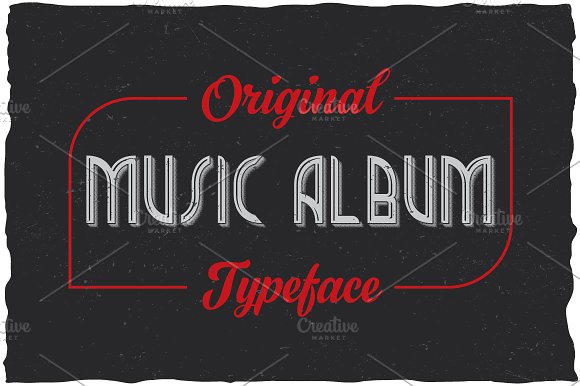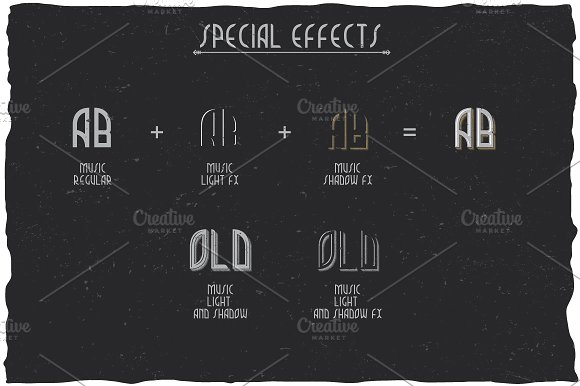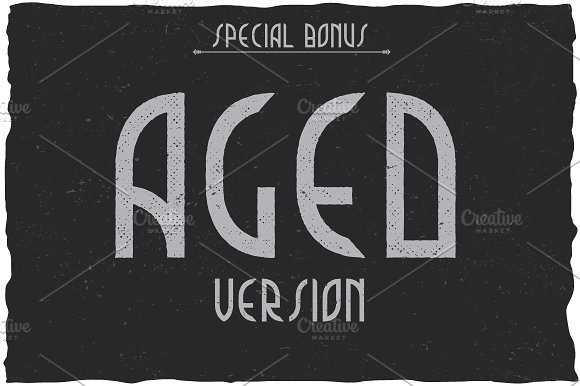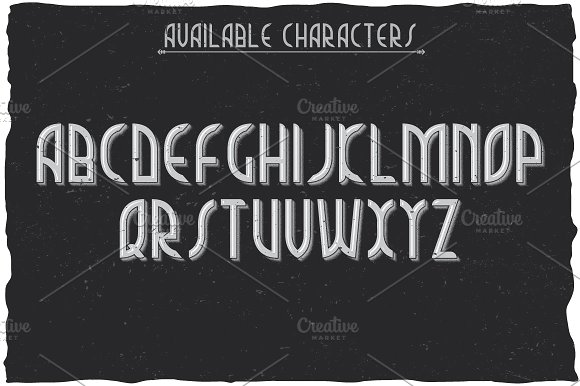
Music Album Vintage Label Typeface
Here is a classic look label typeface named “Music”. It’s made in vintage label style. Font is perfect for any labels design.